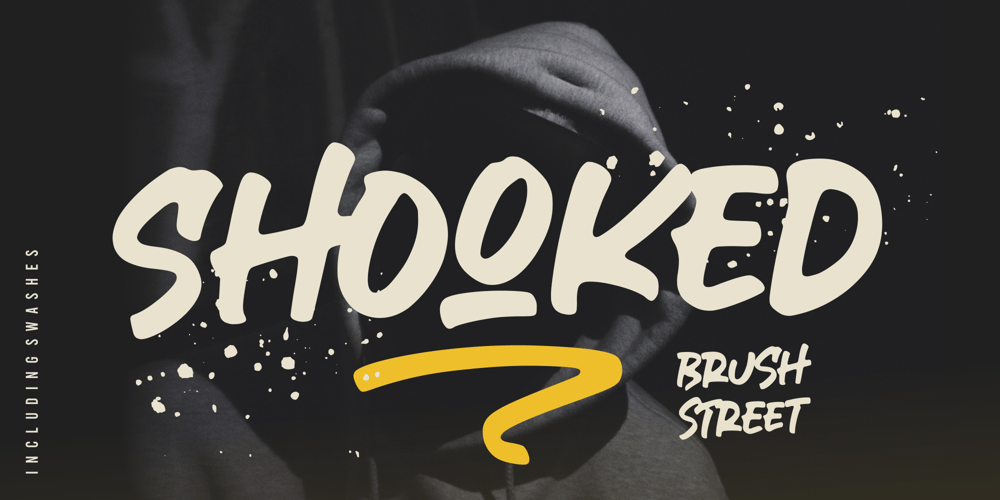
Shooked Font Family was designed by Bagus Arya Kirana and published by Krntype Studio. Shooked contains 1 styles and family package options. Shoked is a Street Brush Font style.Like the unique and distinctive graffiti art that we often encounter on the street.Made with a thick brush, so that each stroke produces a strong and fierce impression.Shooked is ideal for logos, apparel, T-shirts, Hoodies, quotes, product packaging, and many more.